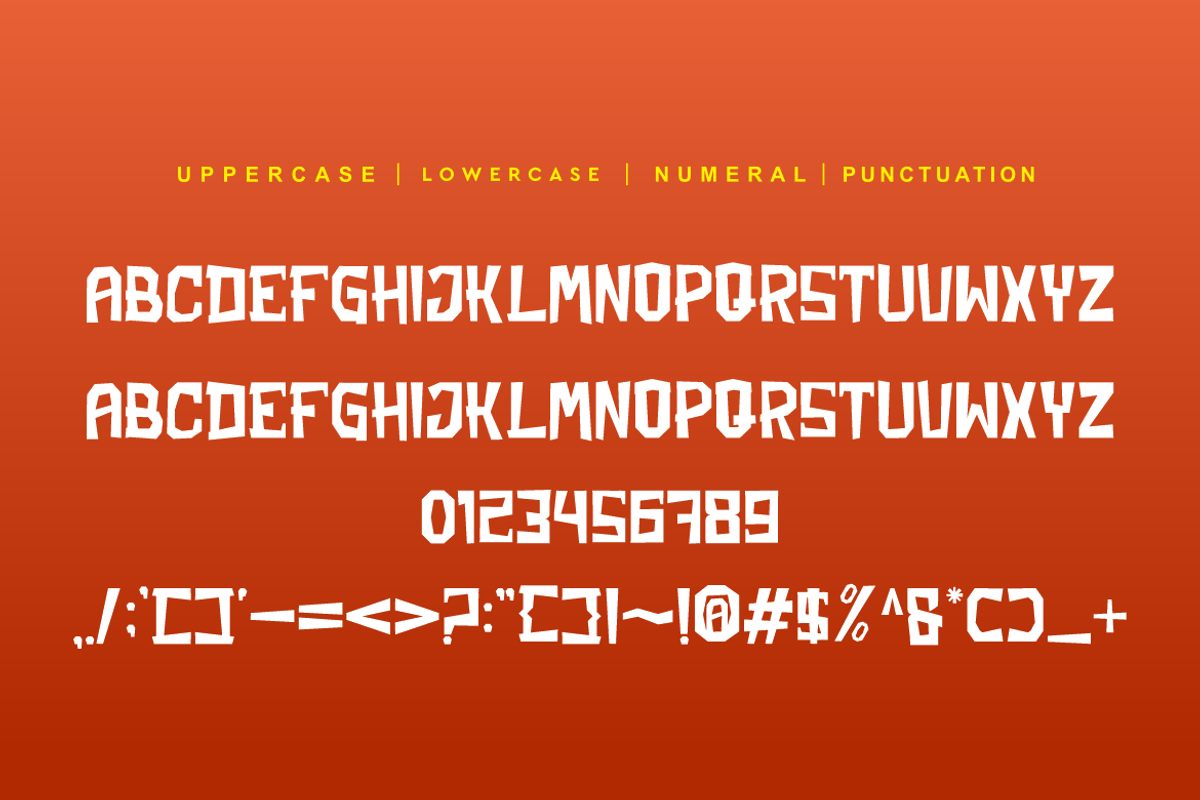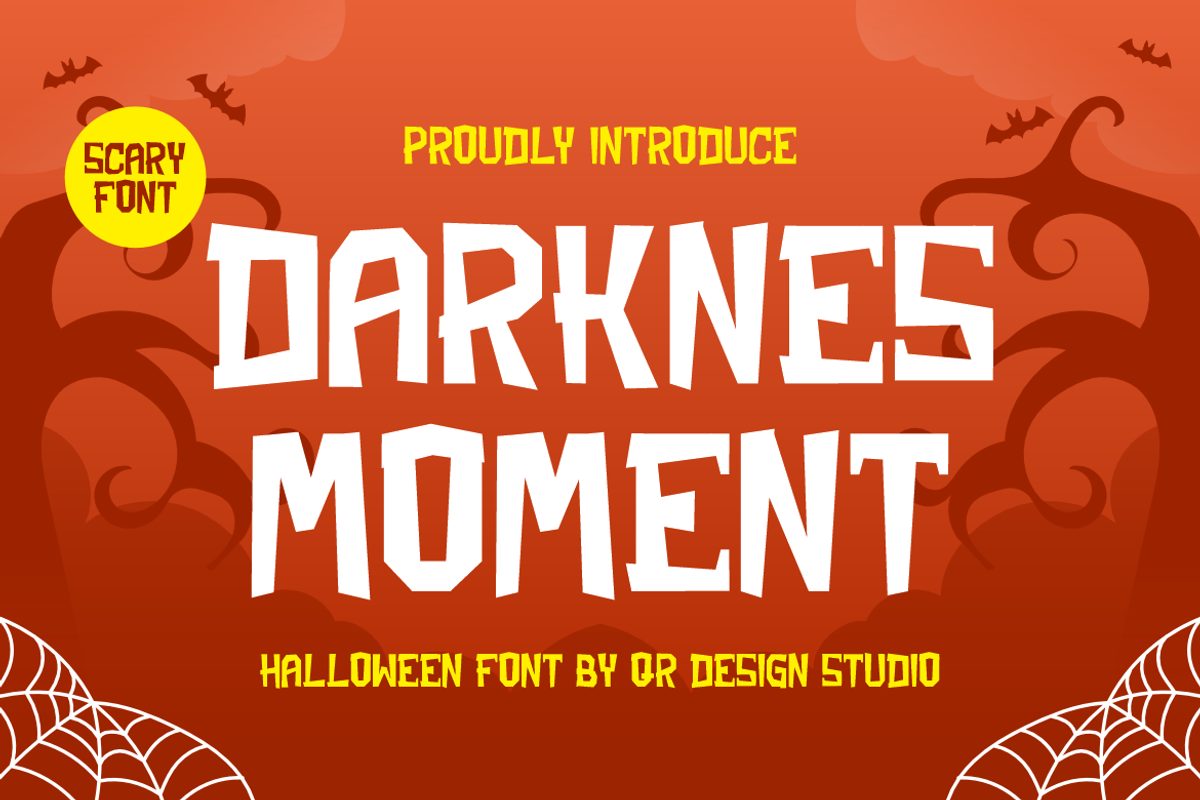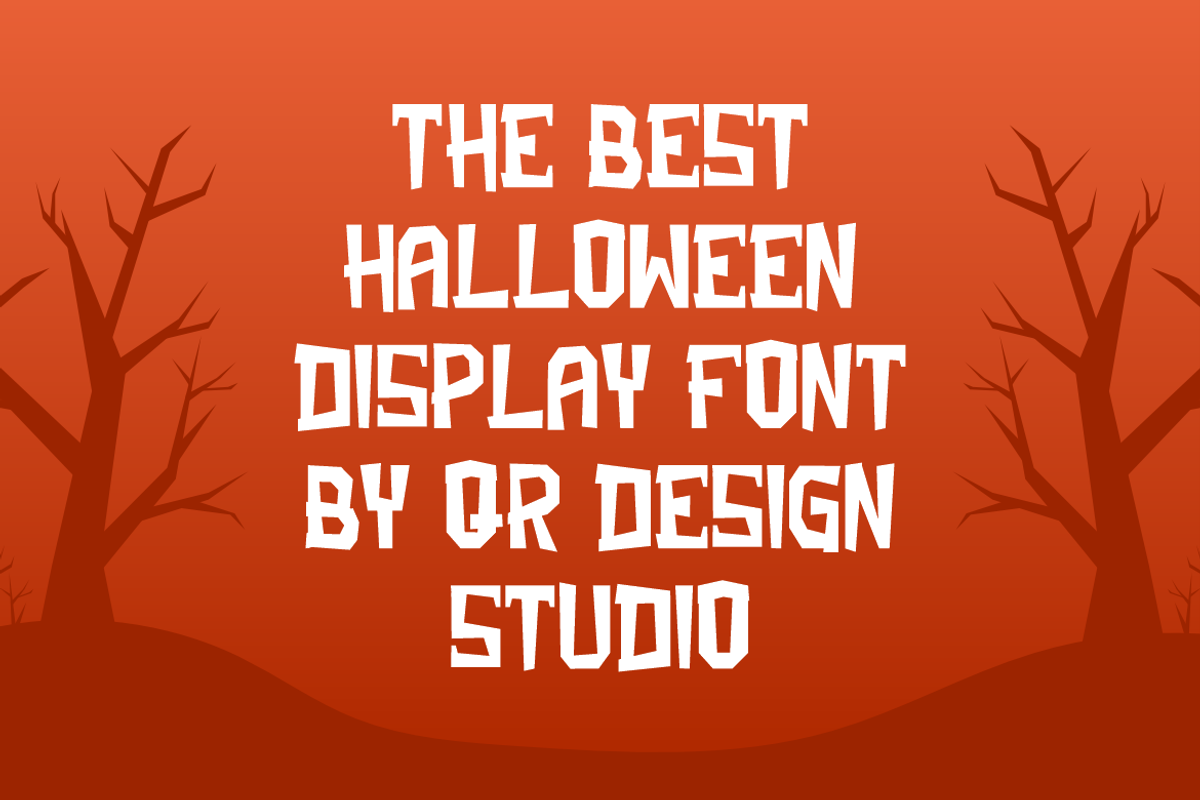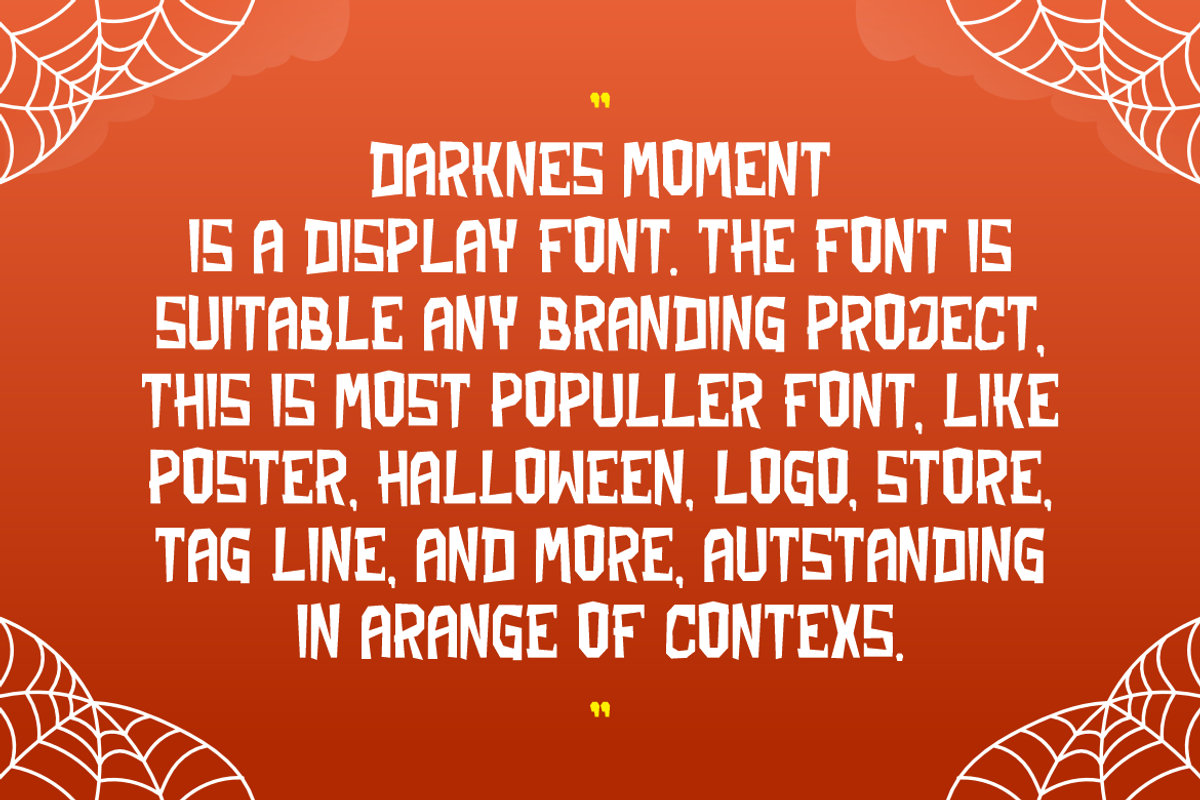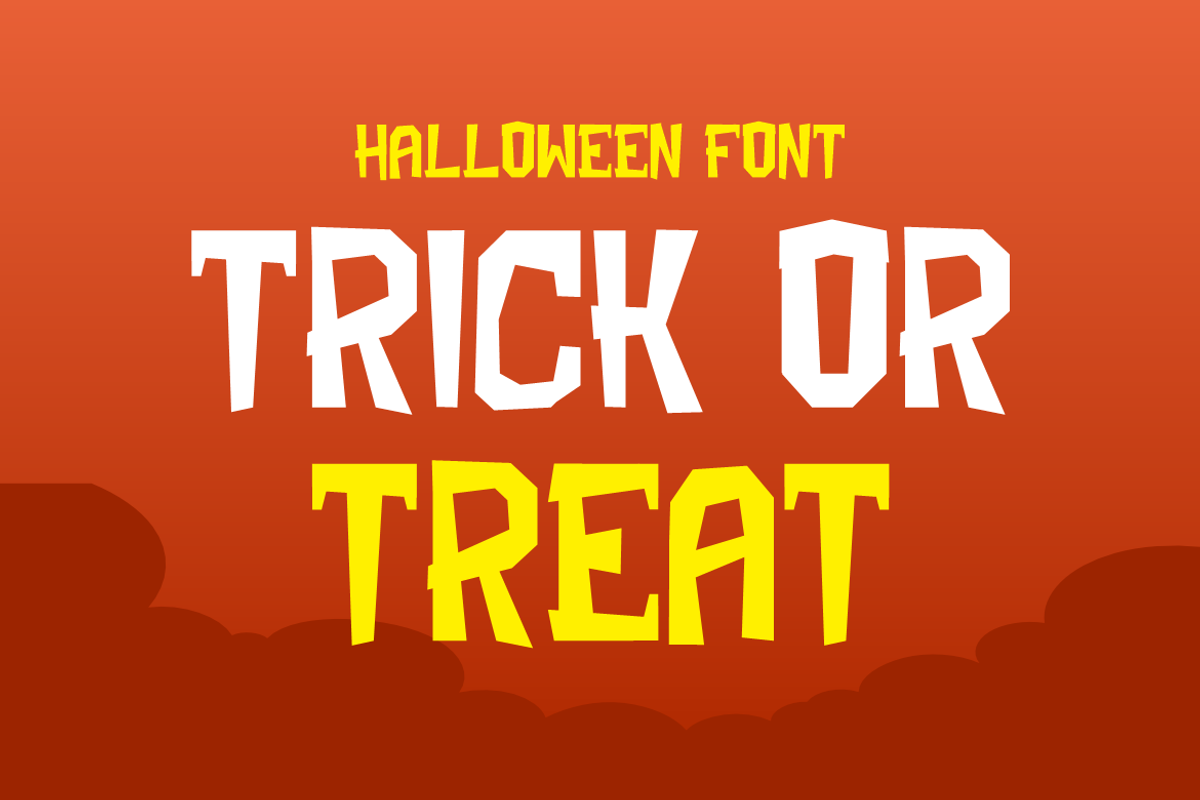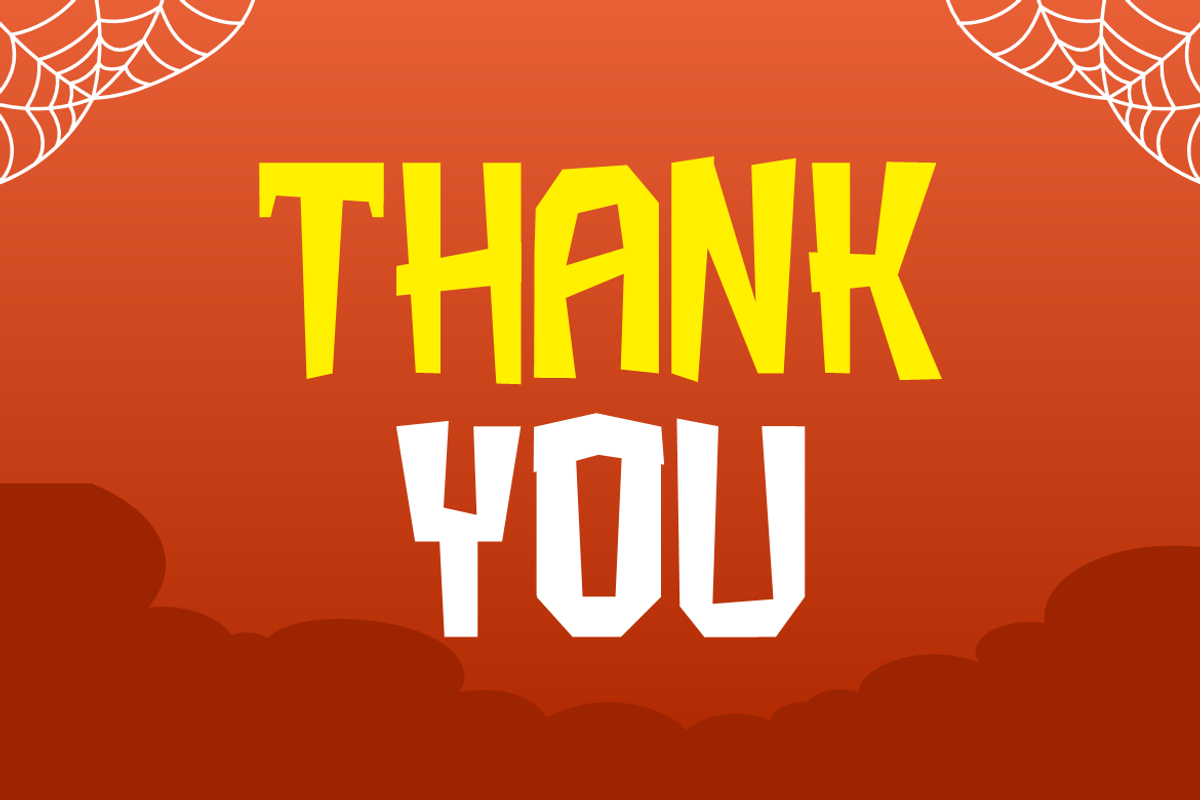
Darknes Moment - Halloween Fonts
Darknes Moment - Halloween Fonts is a bold and authentic display font. The font is suitable for any branding project like logo, hallowen, food, poster, kids, sport, and many more. Outstanding in a wide range of contexts.